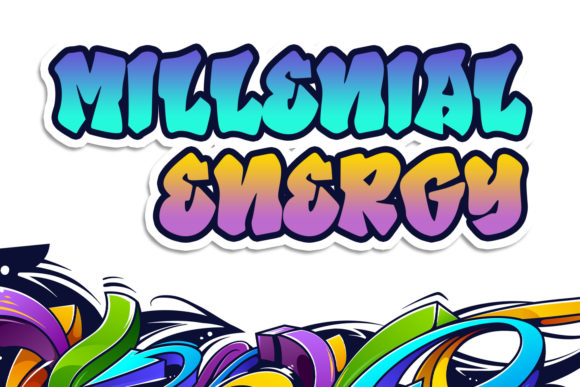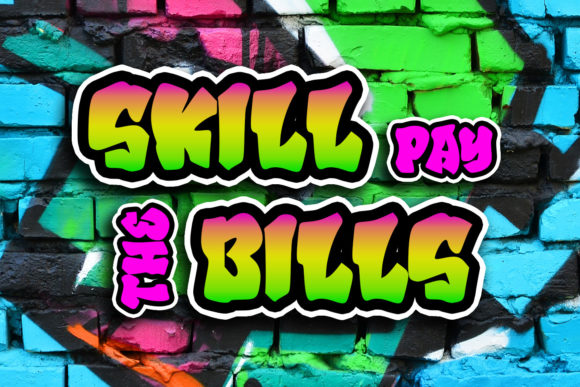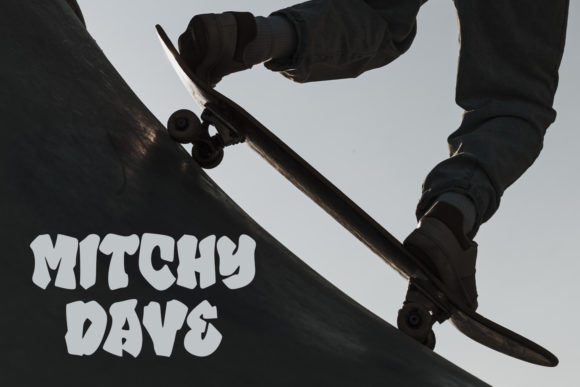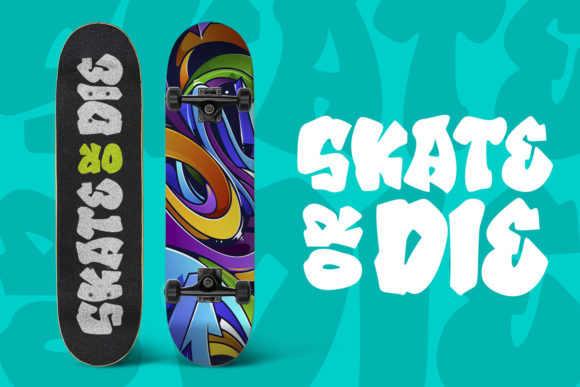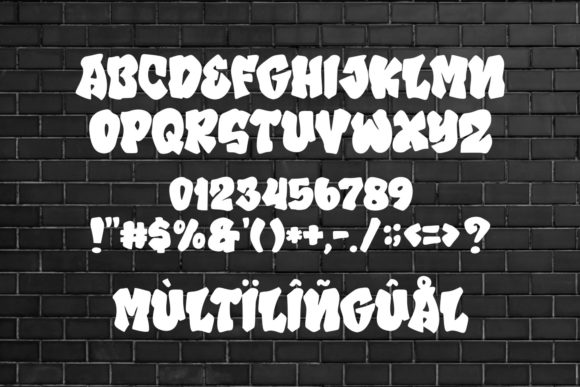
Introducing Grafite Font: The Ultimate Graffiti-Styled Display Font for Designers and Crafters
Are you a designer or crafter looking for a font that can add a touch of urban style to your projects? Look no further than Grafite Font, a thick lettered, graffiti-styled display font that’s perfect for creating bold and eye-catching designs. With its street art vibe, Grafite Font is ideal for a wide range of applications, from t-shirts and sportswear to logos, advertisements, and clothing.
What is Grafite Font?
Grafite Font is a unique and stylish font that’s inspired by the vibrant and dynamic world of graffiti art. Its thick, bold letters are designed to make a statement, making it perfect for designers and crafters who want to add a touch of edginess to their projects. Whether you’re creating a logo, advertisement, or clothing design, Grafite Font is sure to turn heads.
Key Features of Grafite Font
- Graffiti-styled design: Grafite Font features a bold, graffiti-inspired design that’s perfect for adding a touch of urban style to your projects.
- Thick lettering: The font’s thick letters are designed to make a statement, making it perfect for creating bold and eye-catching designs.
- Street art vibe: Grafite Font has a genuine street art vibe that’s perfect for designers and crafters who want to add a touch of edginess to their projects.
- Versatile: Grafite Font is suitable for a wide range of applications, from t-shirts and sportswear to logos, advertisements, and clothing.
Uses for Grafite Font
Grafite Font is a versatile font that can be used for a wide range of projects, including:
- T-shirts and apparel: Add a touch of urban style to your t-shirt and apparel designs with Grafite Font.
- Sportswear: Grafite Font is perfect for creating bold and eye-catching sportswear designs.
- Logos: Use Grafite Font to create a bold and memorable logo for your business or brand.
- Advertisements: Grafite Font is perfect for creating eye-catching advertisements that grab attention.
- Clothing: Add a touch of street style to your clothing designs with Grafite Font.
Why Choose Grafite Font?
There are many fonts to choose from, but Grafite Font stands out from the crowd. Here are just a few reasons why:
- Unique design: Grafite Font features a unique and stylish design that’s sure to turn heads.
- High-quality: Grafite Font is a high-quality font that’s designed to produce crisp and clear results.
Tips for Using Grafite Font
Here are a few tips for using Grafite Font:
- Use it sparingly: Grafite Font is a bold font that’s best used sparingly. Use it to add emphasis to your designs, but avoid overusing it.
- Experiment with colors: Grafite Font looks great in a variety of colors, so don’t be afraid to experiment and find the perfect color for your design.
- Pair it with other fonts: Grafite Font can be paired with other fonts to create a unique and interesting design.
Grafite Font is a unique and stylish font that’s perfect for designers and crafters who want to add a touch of urban style to their projects. With its thick, bold letters and street art vibe, Grafite Font is ideal for a wide range of applications, from t-shirts and sportswear to logos, advertisements, and clothing. Whether you’re a professional designer or a crafter, Grafite Font is a great choice for anyone looking to create bold and eye-catching designs.